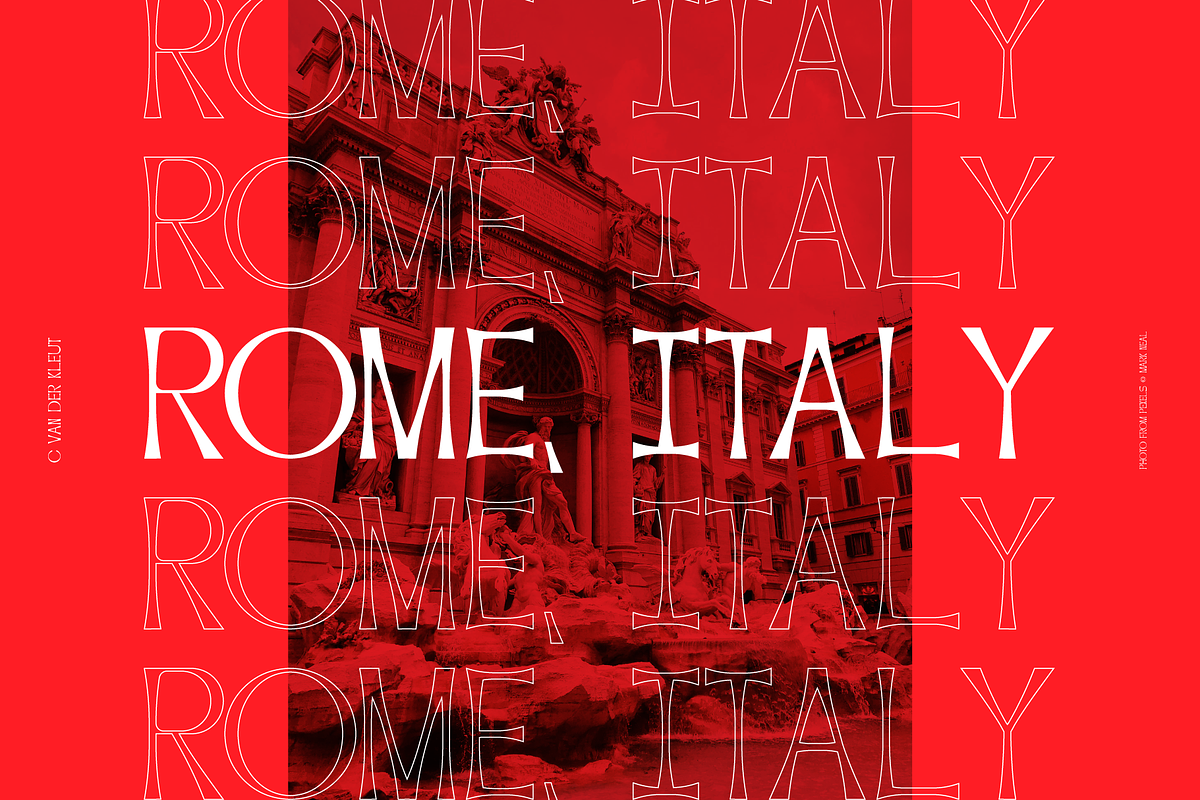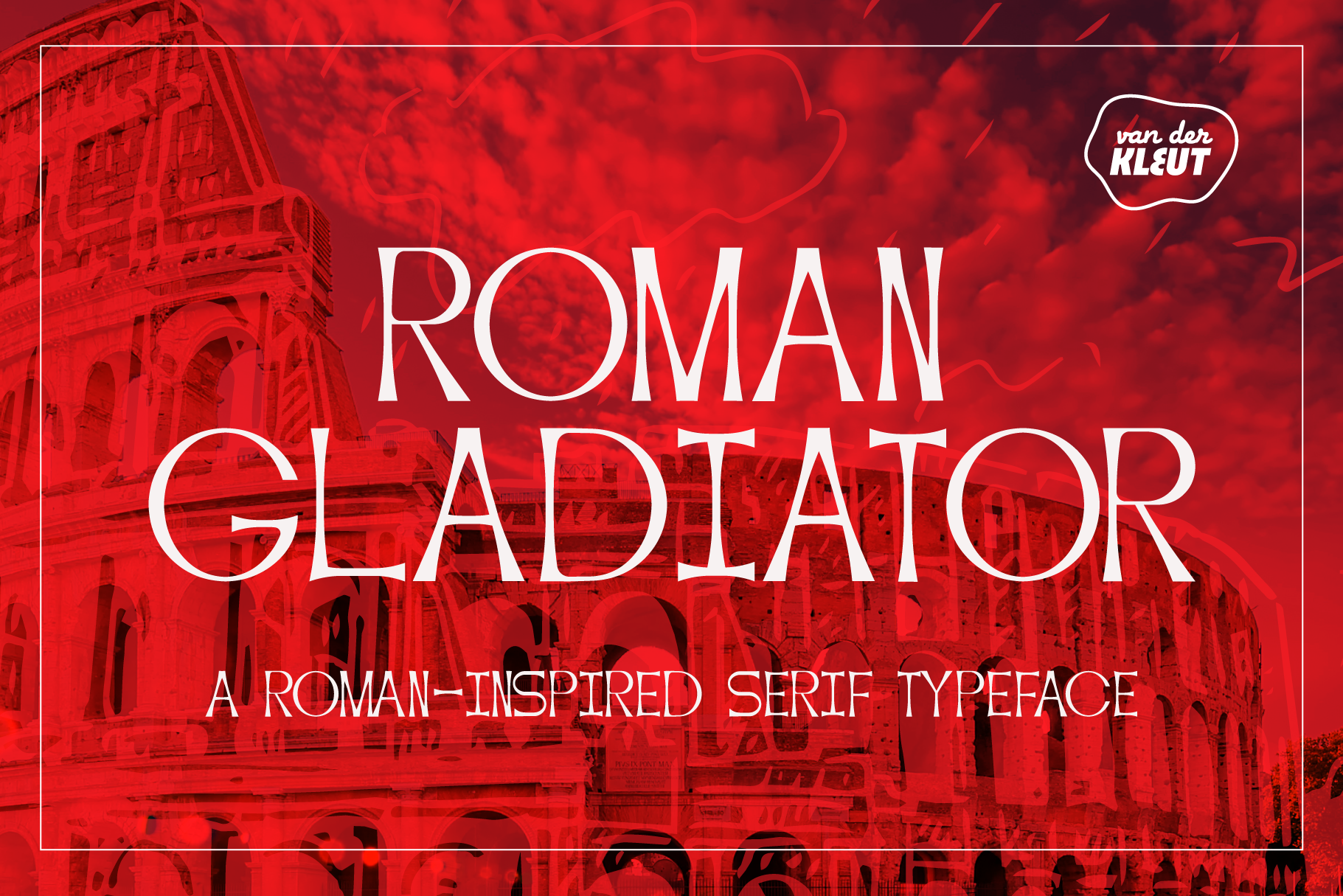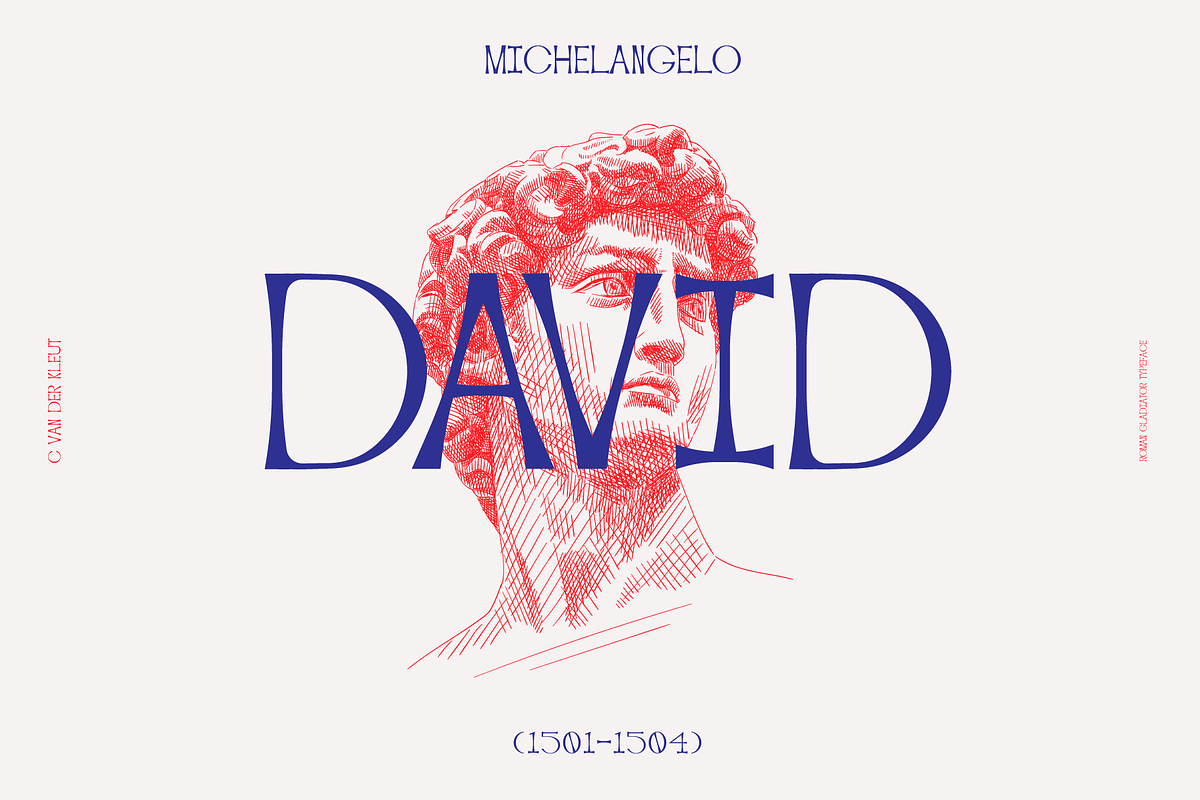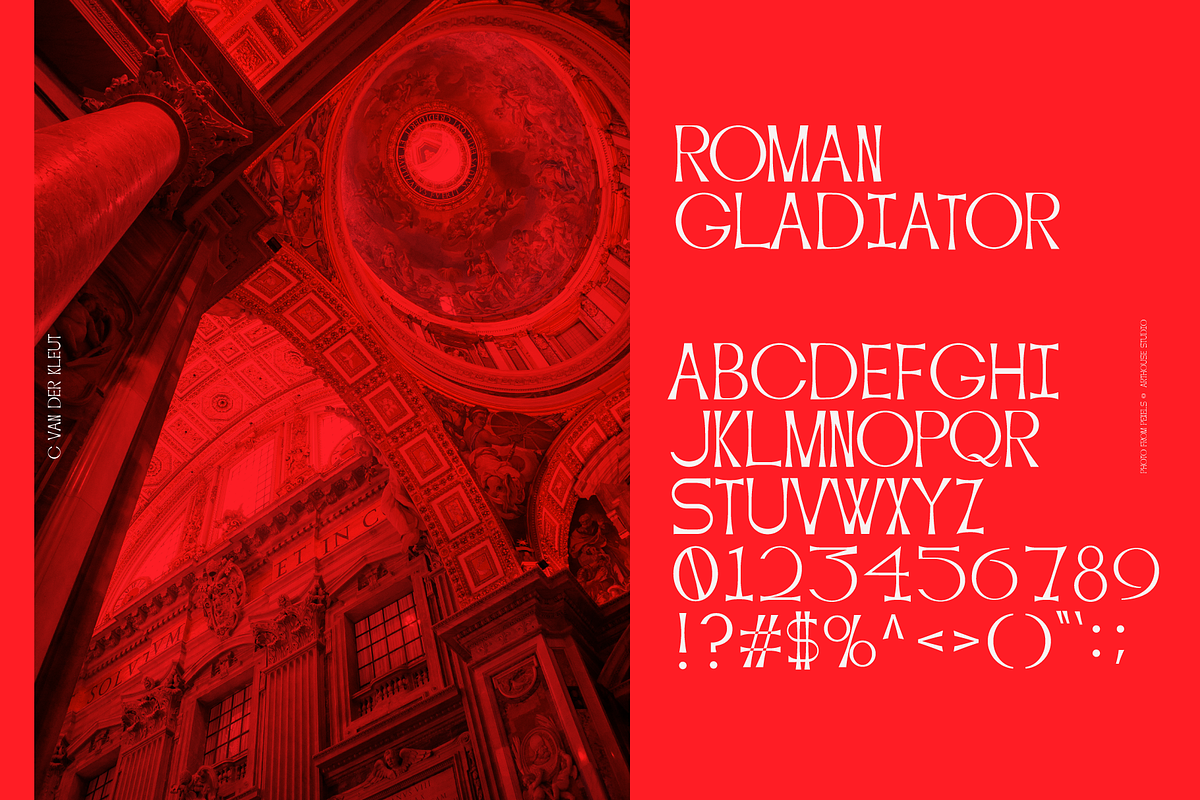
ROMAN GLADIATOR Serif Typeface
Inspired by the majestic inscriptions found on the Roman Colosseum, Roman Gladiator is a typeface that embodies the spirit of gladiatorial combat and the enduring legacy of Roman civilization. Its sharp serifs and varied line weight pay homage to the architectural marvels of the ancient world, while its intricate curves and subtle flourishes add a touch of sophistication and refinement.